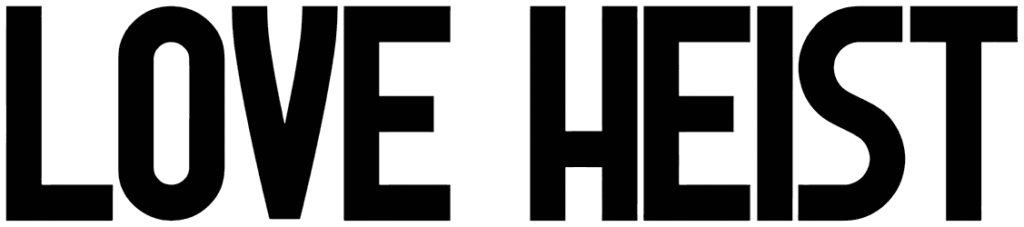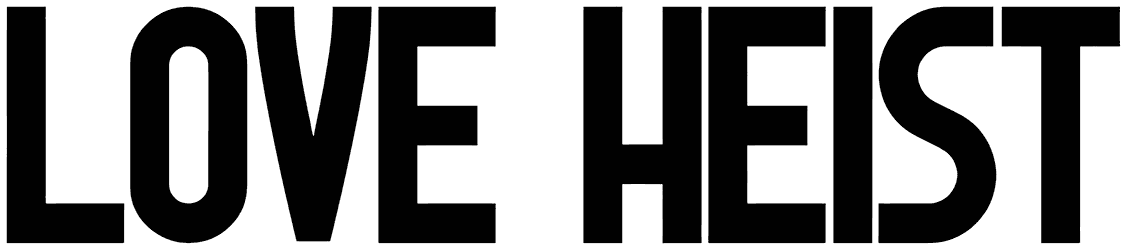
Love Heist Font
Modest and modern styles, like what this sans serif font has, are always one of the popular options for varied designs. Bold, condensed, and tall letters of the Love Heist font have the power to capture attention. This all-caps font doesn’t have lowercase letters, numerals, or punctuation marks, but it will be an apt item for a fashion advertising billboard or whatnot.